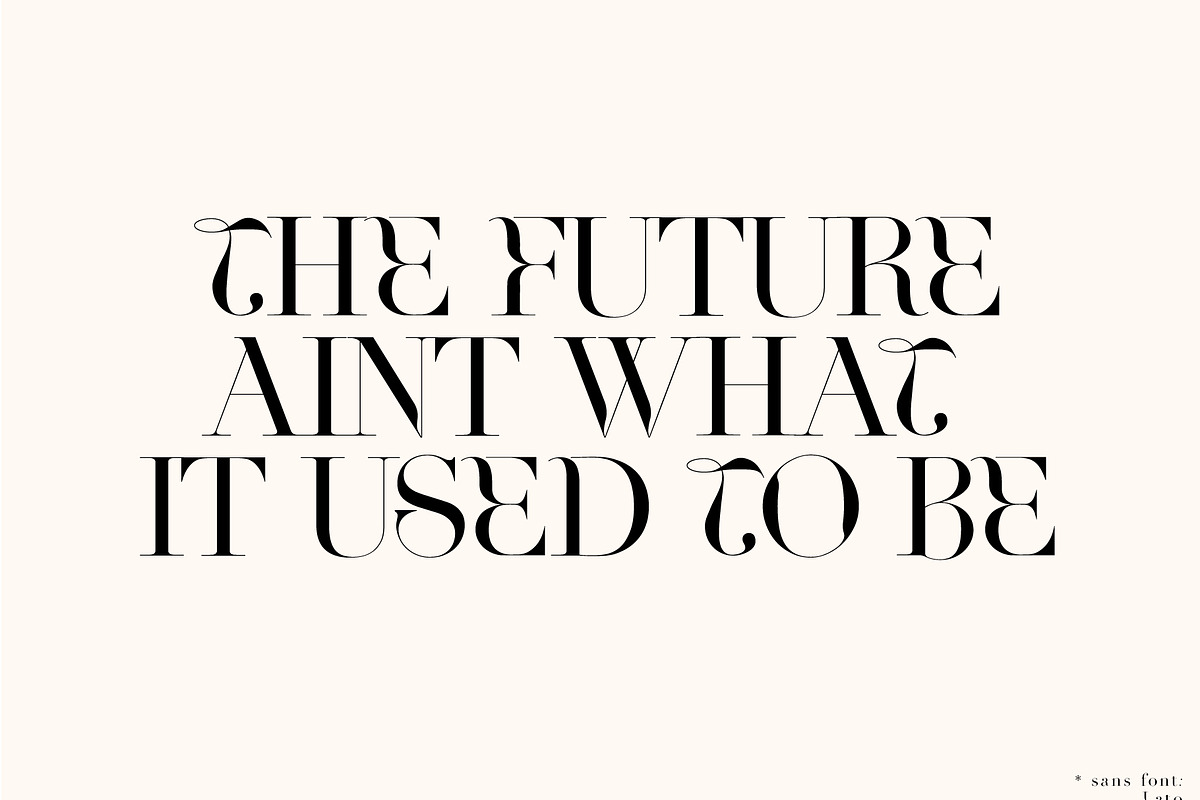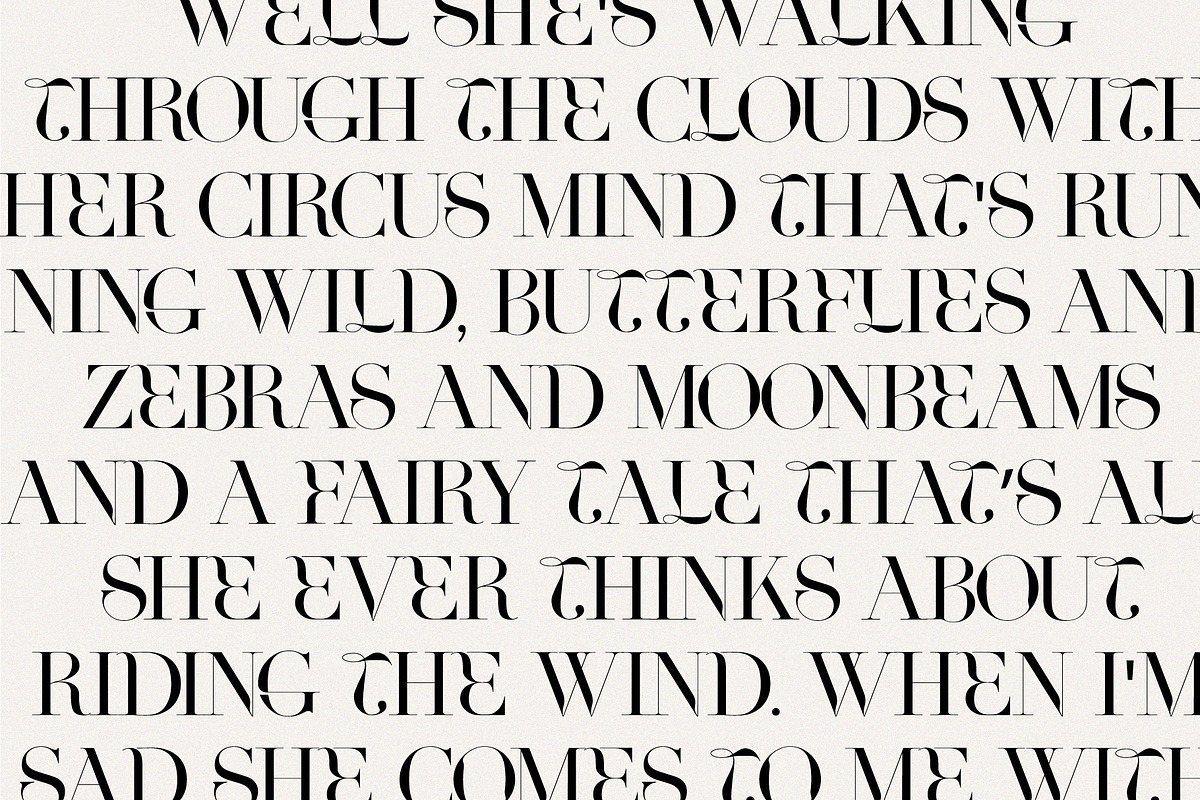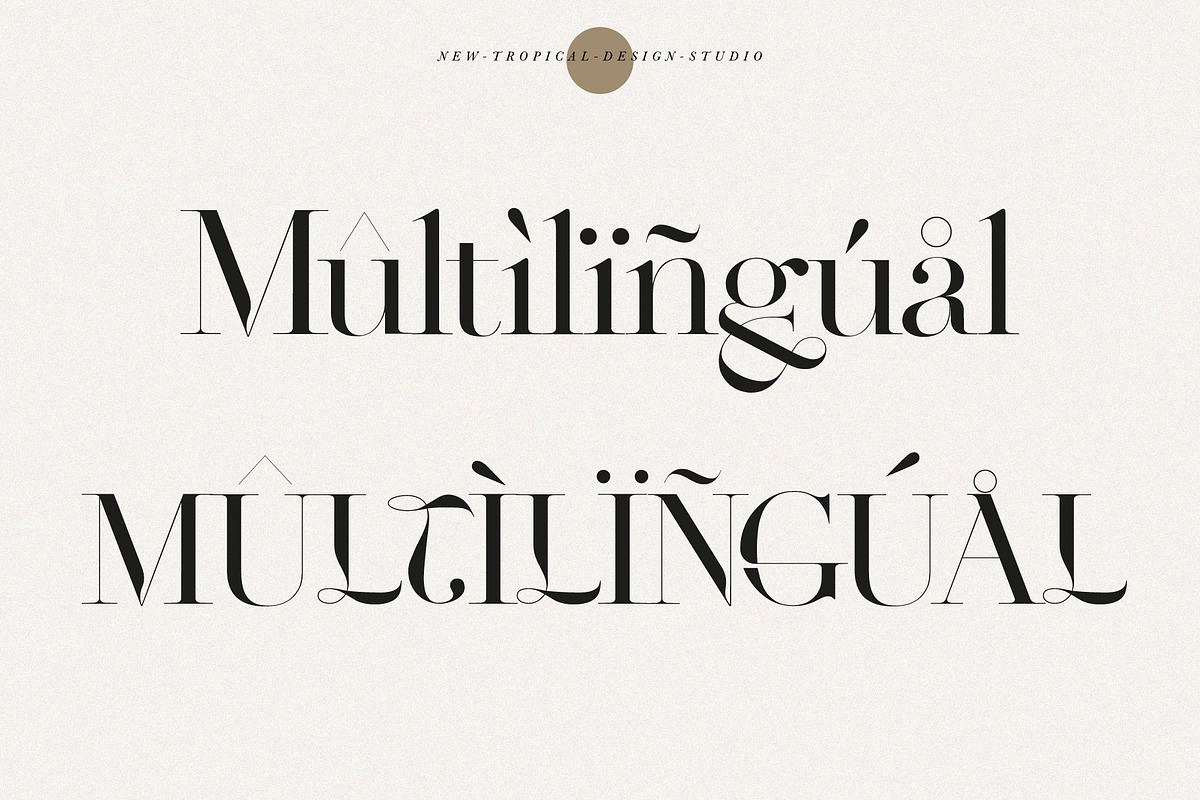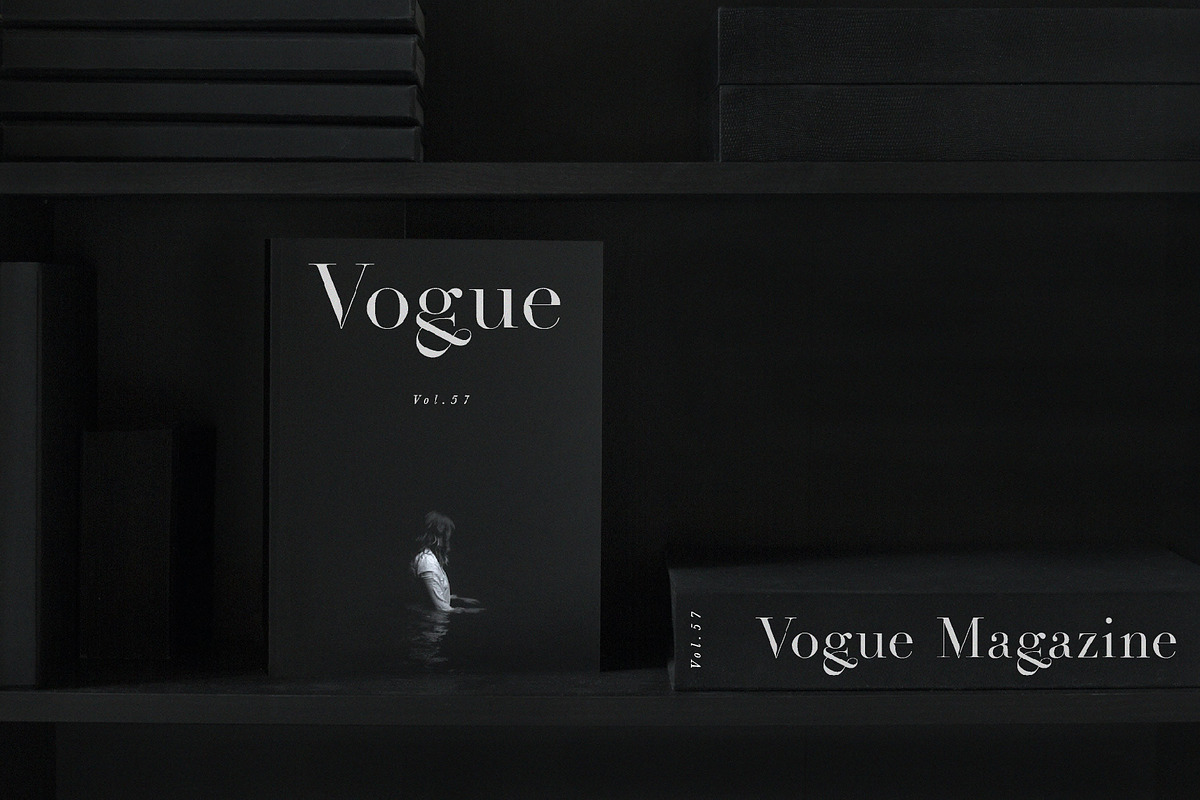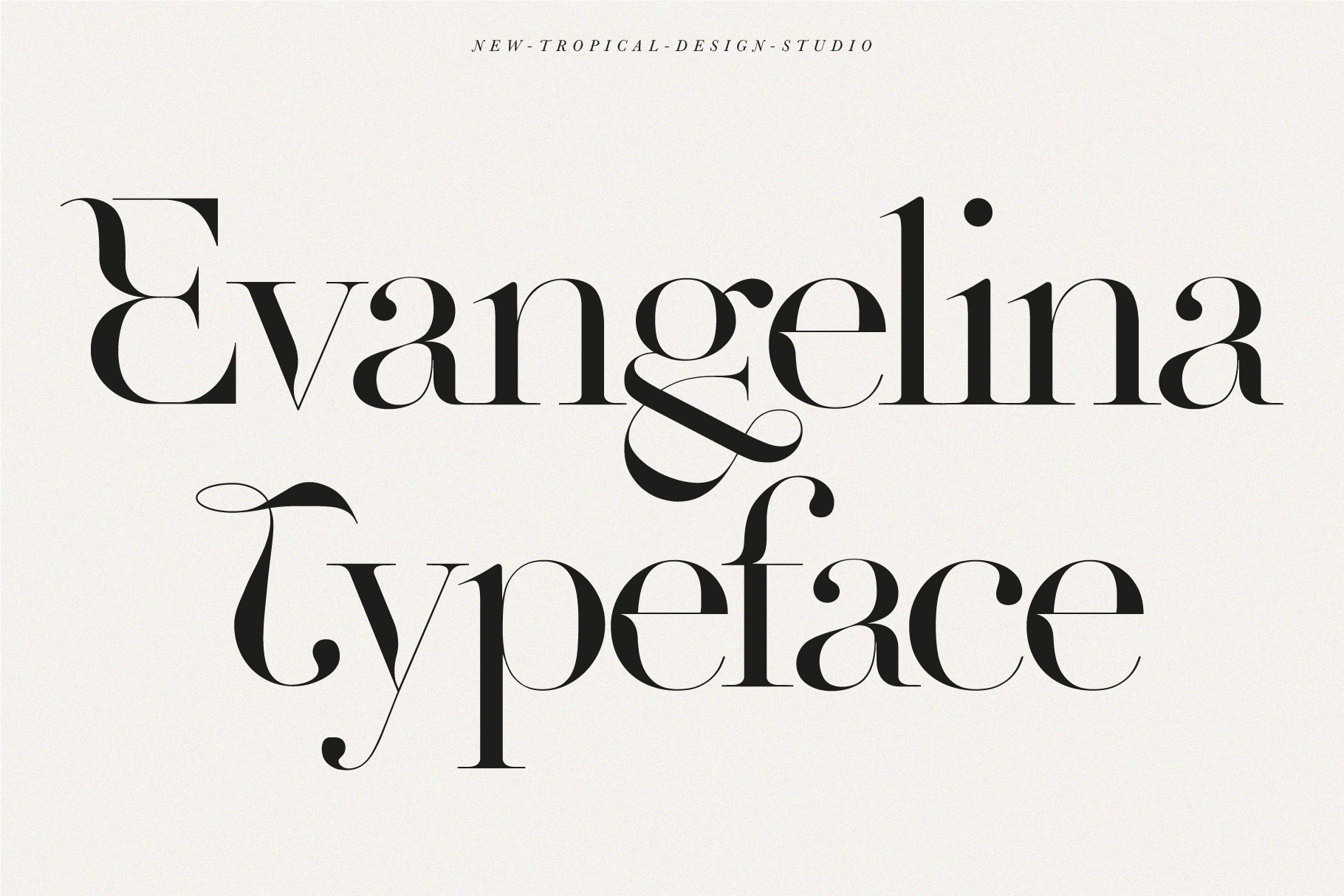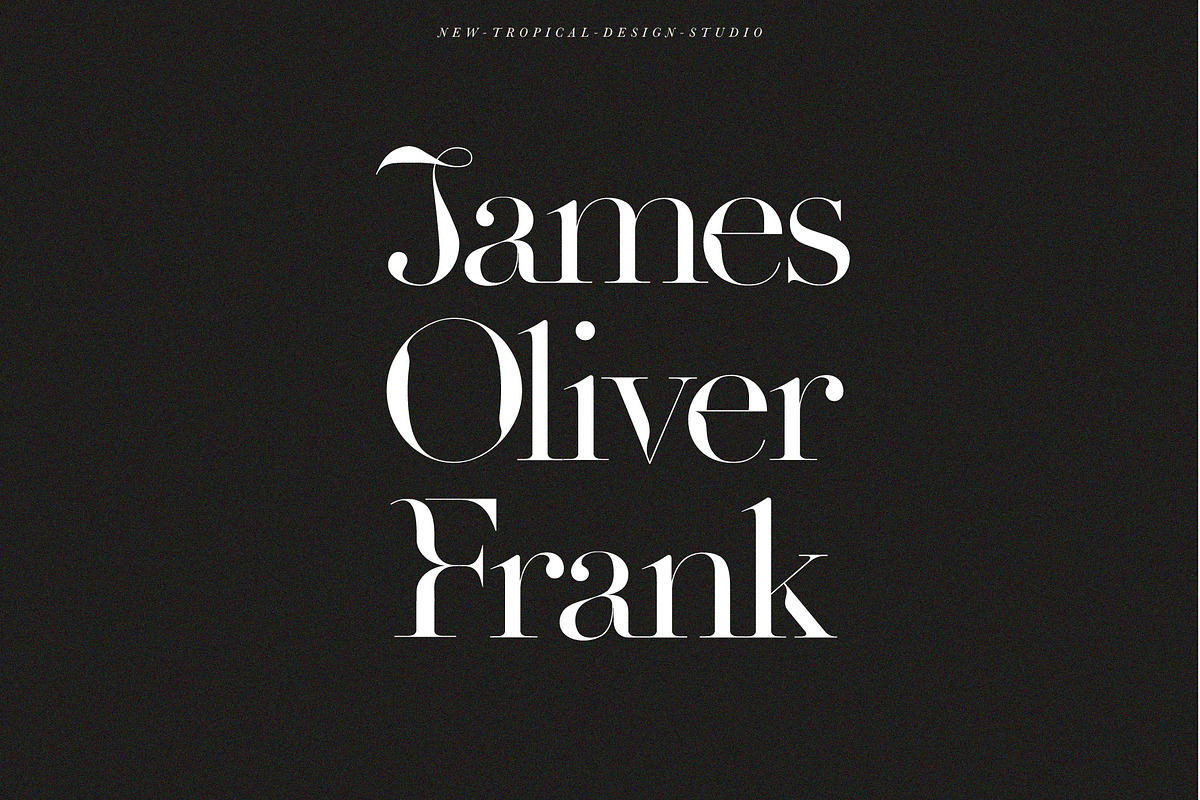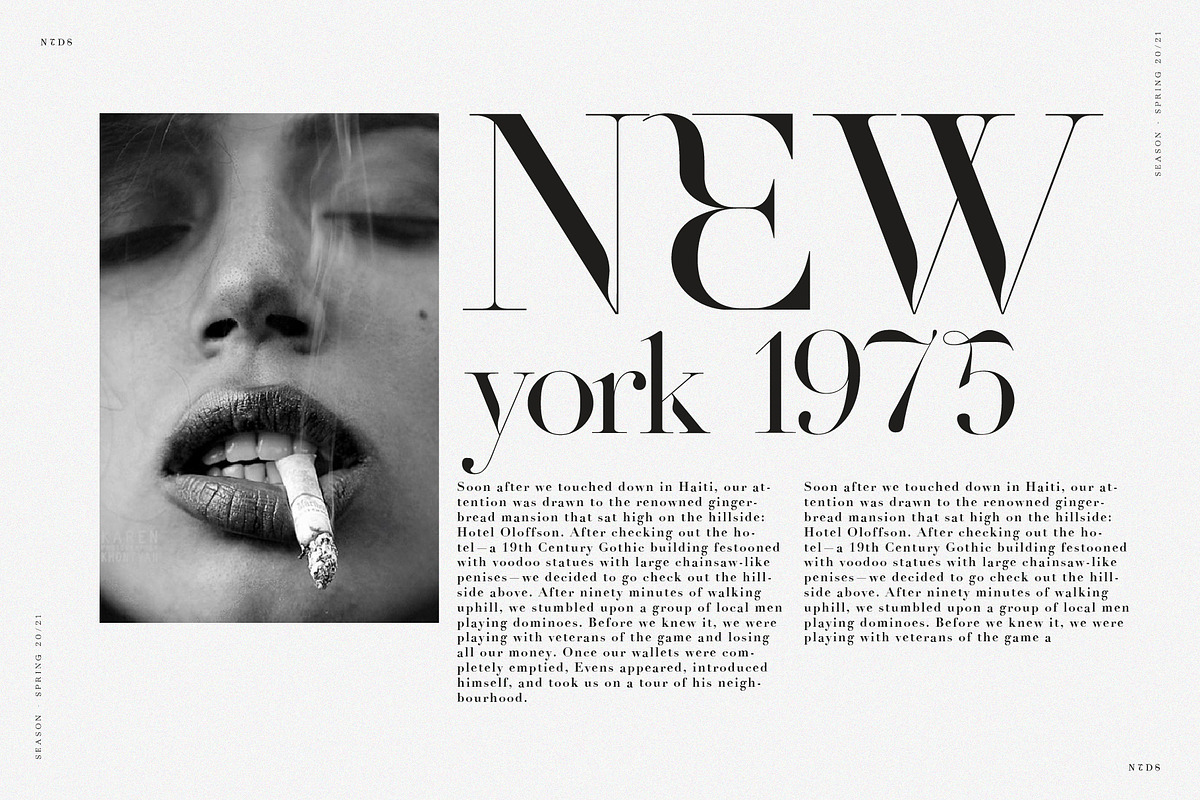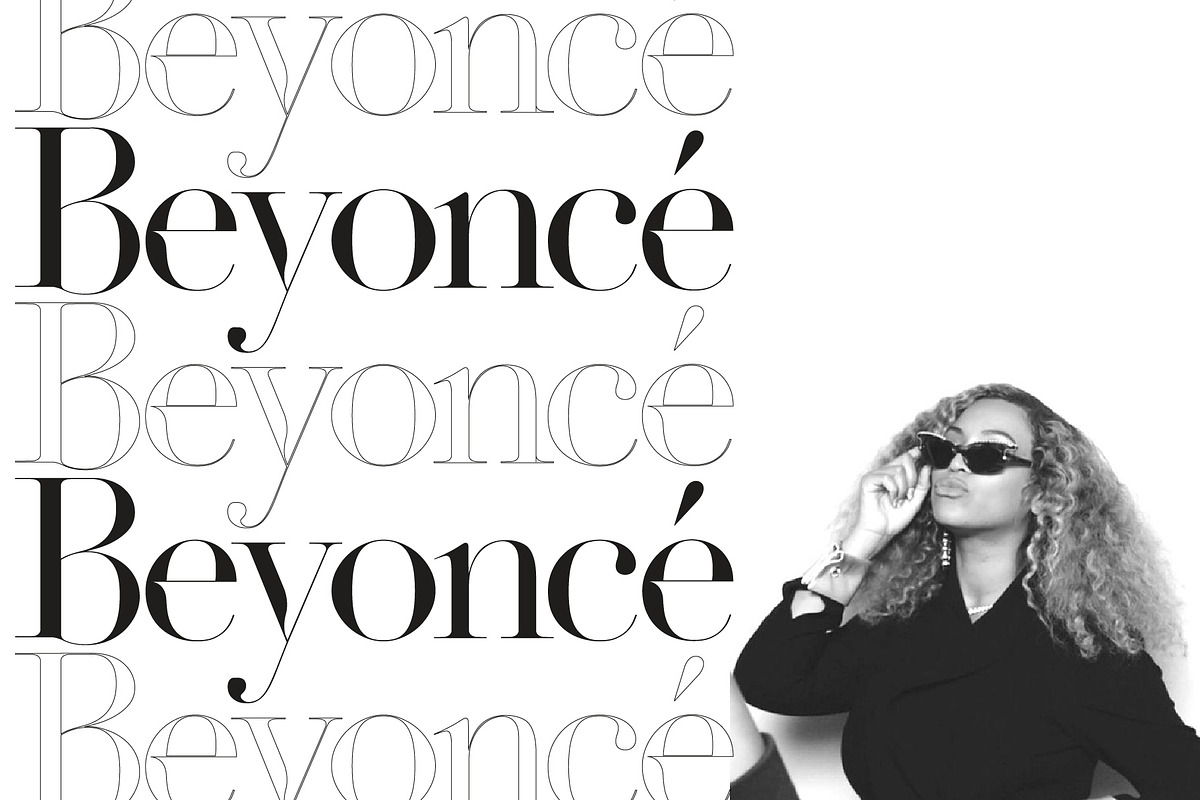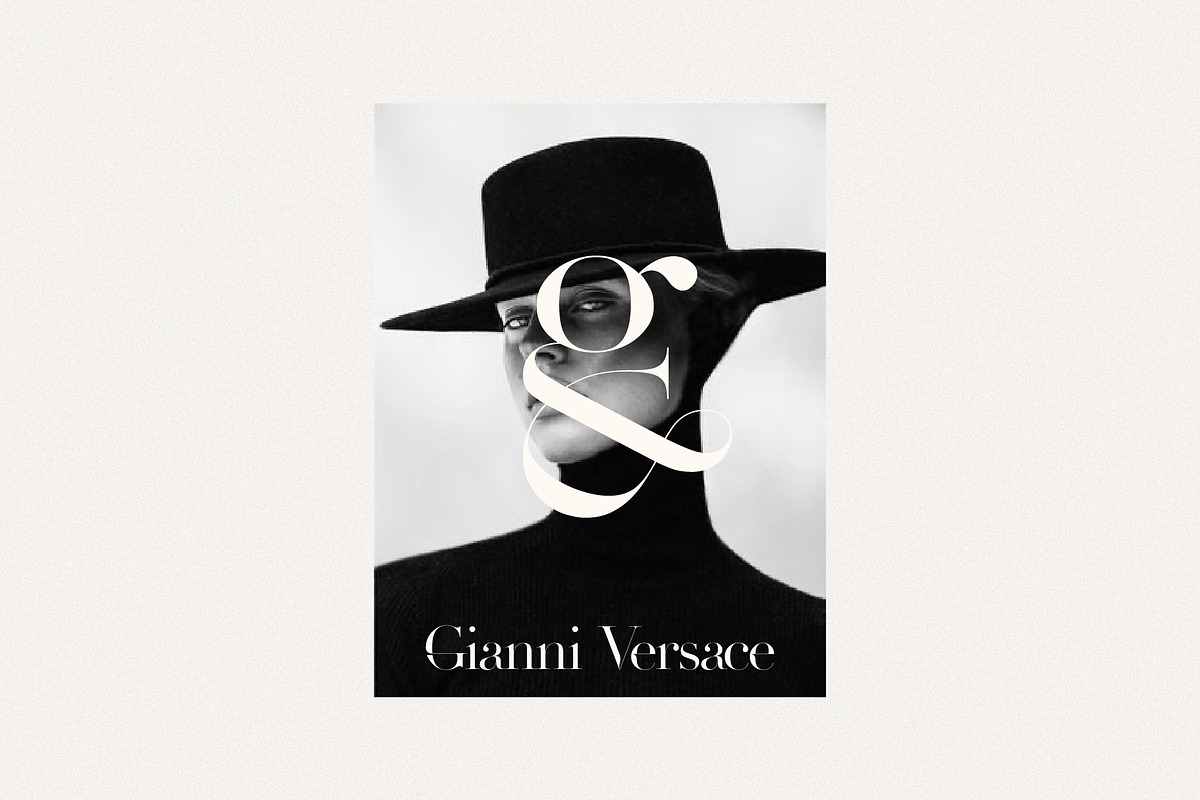
Evangelina - Fashion Display Font
Evangelina is a standout display font that is an ode to fashion typography from the 1970s to present day. It's elaborate curves and unique shapes make it perfect for headings, logos & wedding invitations. This font is made to pair with the classic fashion font "Didot". Evangelina is all class so if you want a stylish font that is guaranteed to draw the eye, then this is it!